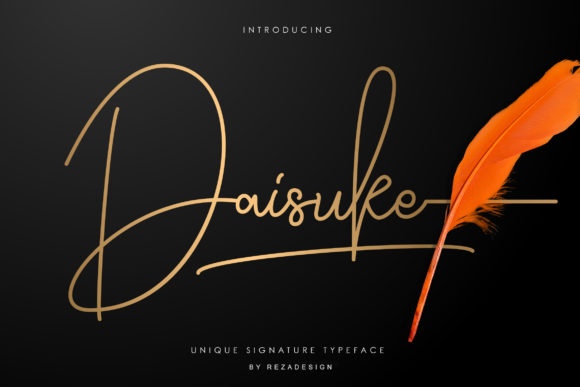
Daisuke Font
Daisuke Font is perfect for Japanese cultural organizations, modern sushi restaurants, zen meditation centers, contemporary martial arts studios, minimalist design agencies, and authentic Japanese lifestyle brands. Its harmonious character makes it ideal for Japanese import businesses, modern anime productions, zen wellness retreats, contemporary ramen shops, minimalist architecture firms, and any project requiring Japanese aesthetic harmony with modern simplicity and authentic cultural respect appeal.
This font is exciting because it embodies the perfect balance of traditional Japanese aesthetic principles and contemporary design functionality while delivering exceptional readability for international communications that honor Japanese culture. The thoughtfully crafted letterforms reflect the Japanese concepts of balance, simplicity, and natural harmony, creating typography that feels both culturally authentic and refreshingly modern, perfect for bridging Eastern and Western design sensibilities.
The Daisuke Font family typically includes Light, Regular, Medium, and Bold weights with Japanese-inspired alternates, harmonious ligatures, and zen elements that enhance its balanced personality. This comprehensive collection enables cultural professionals to create respectful brand systems that maintain Japanese authenticity while offering flexibility for various cultural applications requiring both traditional respect and contemporary international appeal.
Whether you're developing identity systems for Japanese businesses, creating materials for cultural exchange programs, or designing promotional content for Japanese-inspired lifestyle brands, Daisuke Font Free Download delivers the cultural harmony and modern simplicity that resonates with audiences seeking authentic Japanese aesthetics and contemporary minimalist design. Its balanced presence ensures respectful brand recognition across digital platforms and print materials, making it perfect for websites, mobile applications, and cultural campaigns that celebrate Japanese tradition, modern simplicity, and the timeless appeal of balanced design with contemporary international standards and authentic cultural appreciation.